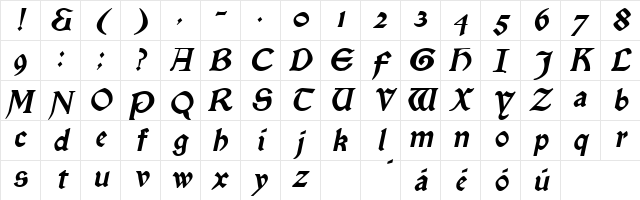
Enchantment Italic Free Font
Enchantment Italic
Design Context for Enchantment
Enchantment is a composed and adaptable typeface that performs quietly and consistently across a wide range of design contexts. The slanted form adds forward momentum and visual energy.
Pro Tip: Use Enchantment for emphasis, pull quotes, and subheadings where its slanted energy can add rhythm to the layout.